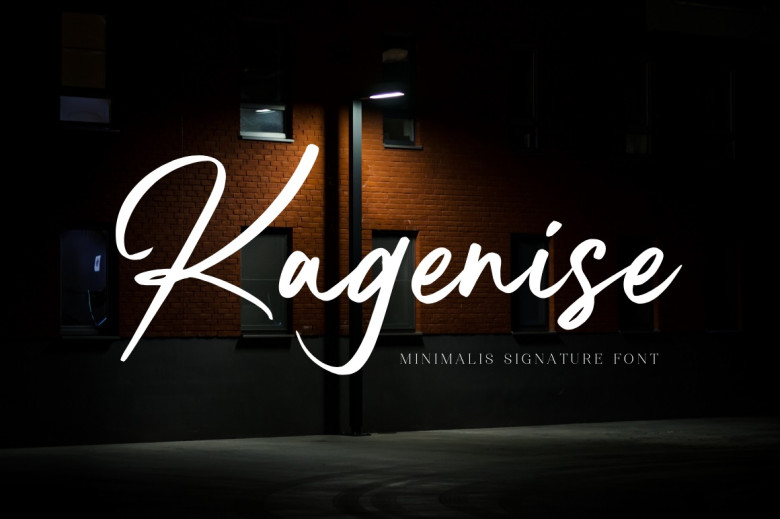
Kagenise Font
“Kagenise,” an elegant script font designed to reflect personal signatures, introduces its fluid lines and luxurious curves that mimic handwritten writing evoking its beauty and authenticity.
“Kagenise” adds an elegant and unforgettable signature style to any design project, giving your designs more character and personal appeal.
Kagenise Handwritten Script Font